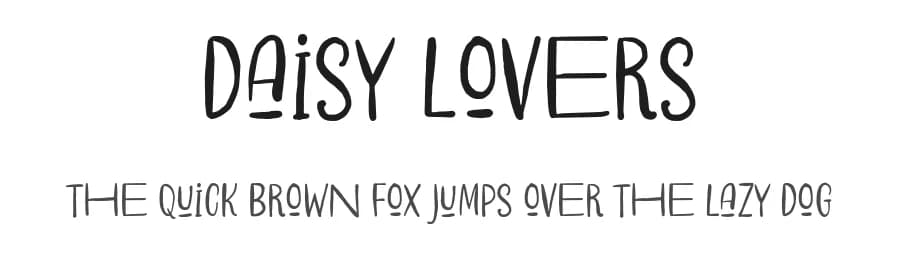
About Daisy Lovers Font
| Designer | Sarid Ezra |
Daisy Lovers Font is a script font that shines as a display or heading face. Pair it with a clean sans-serif or serif font for body text β the contrast creates a clear hierarchy while the two styles stay balanced and easy to read.
Daisy Lovers Font
by Saridezra